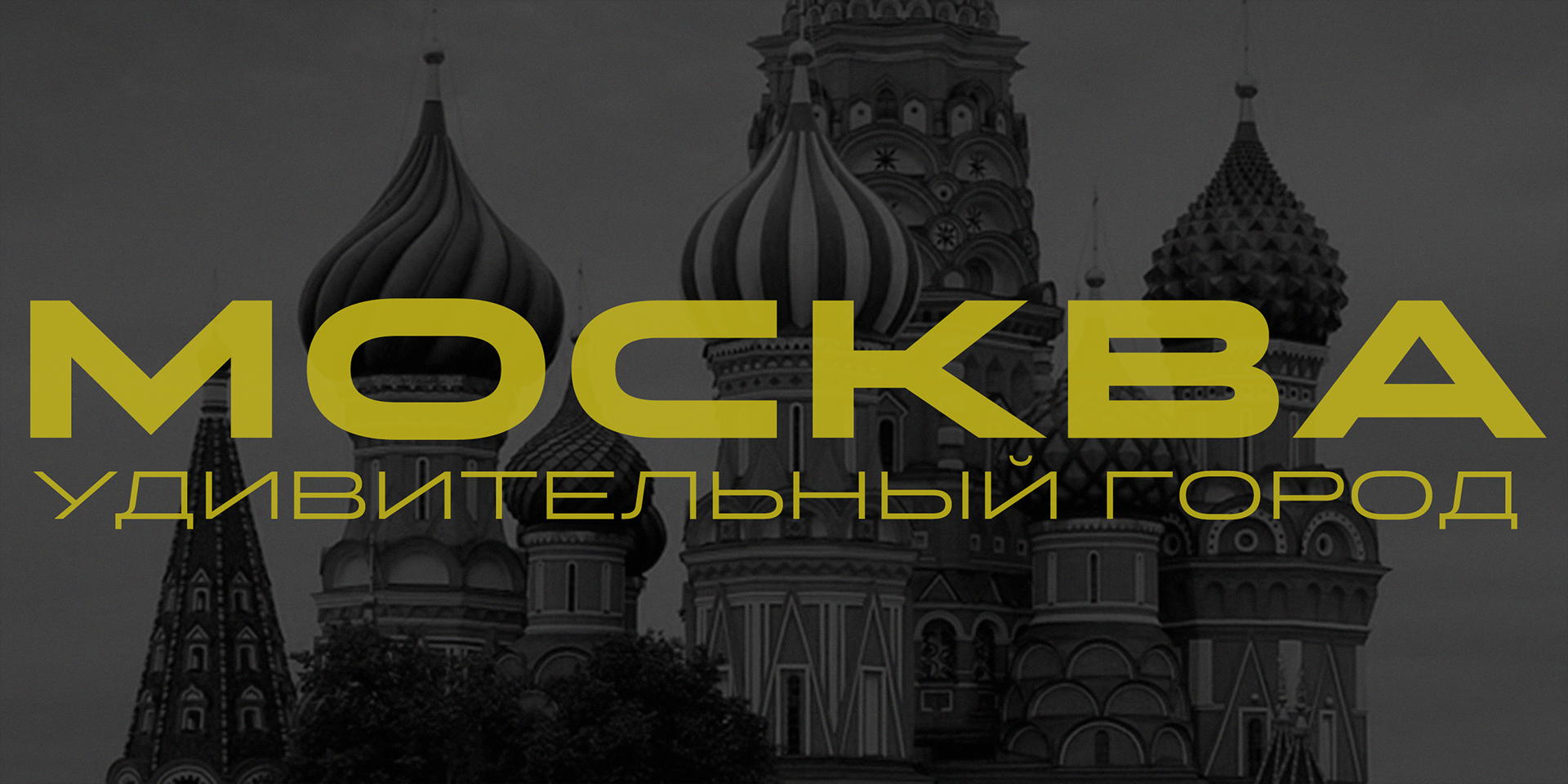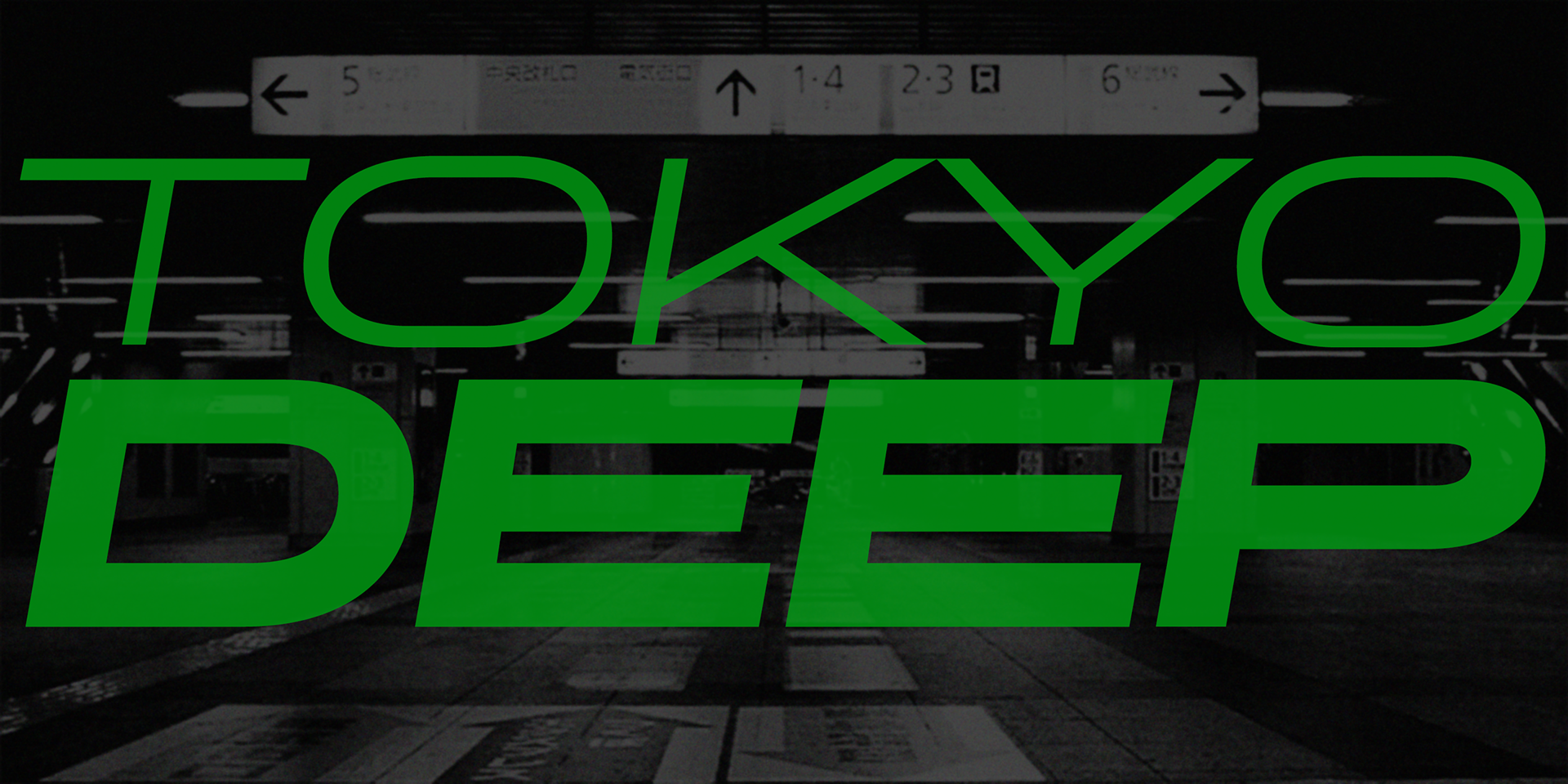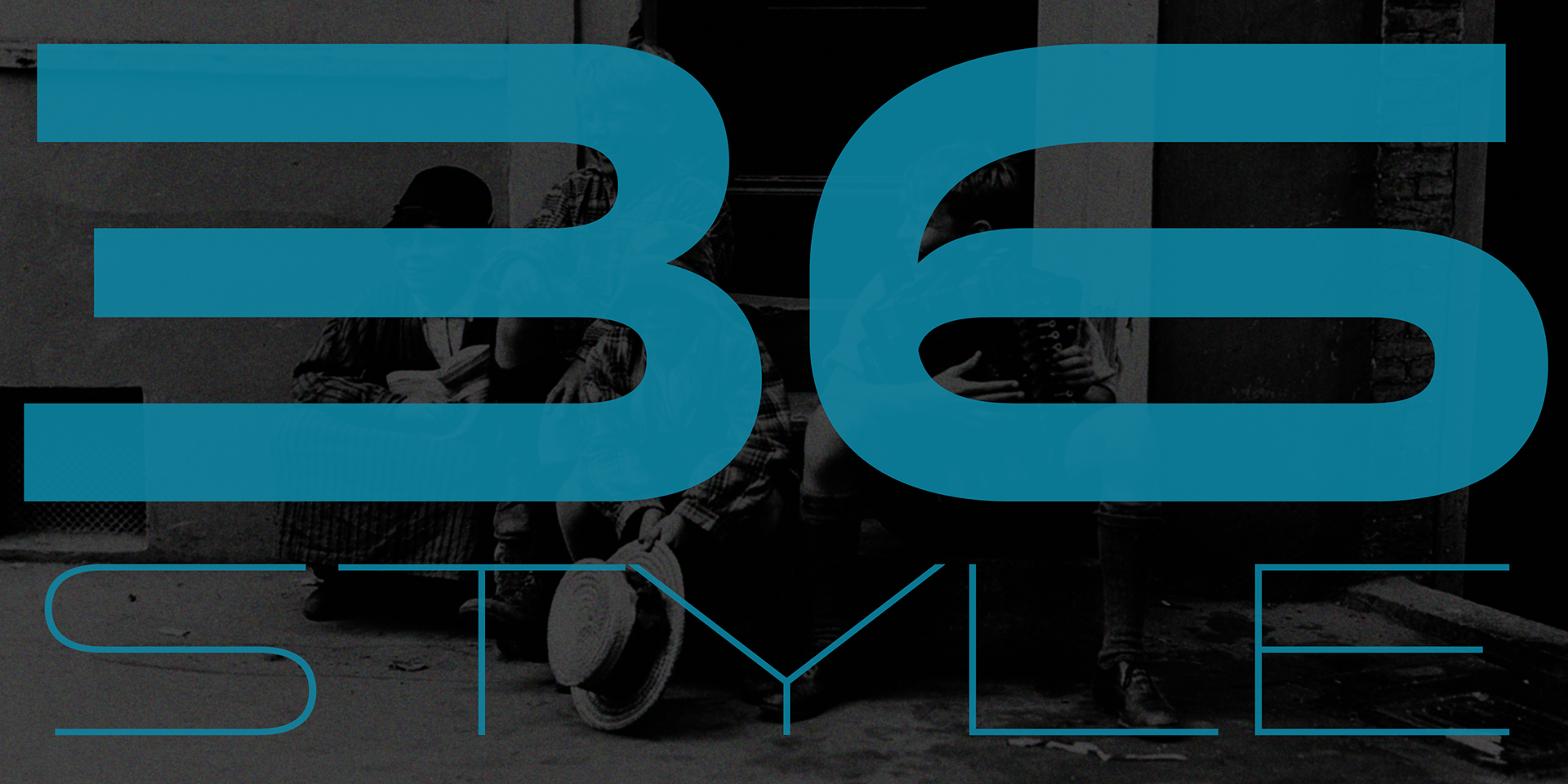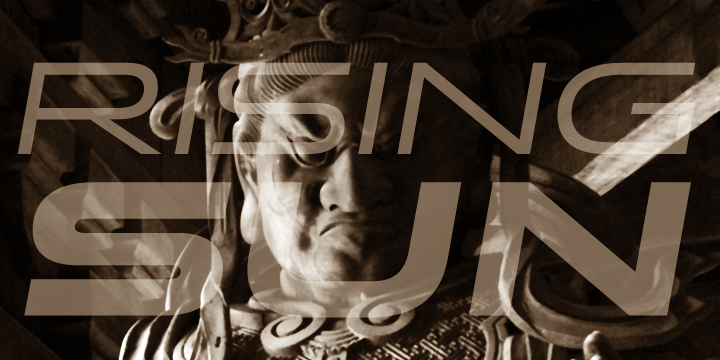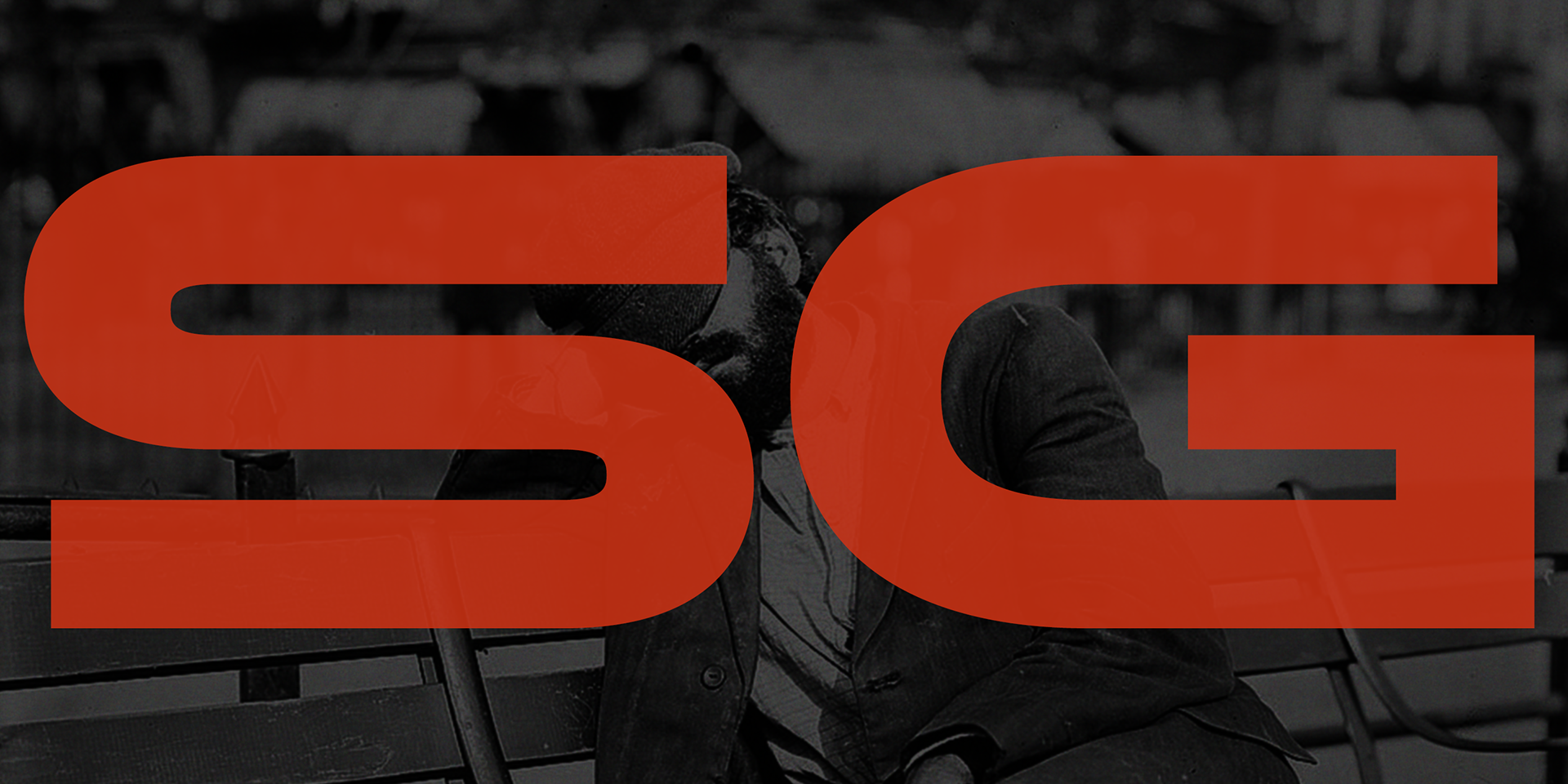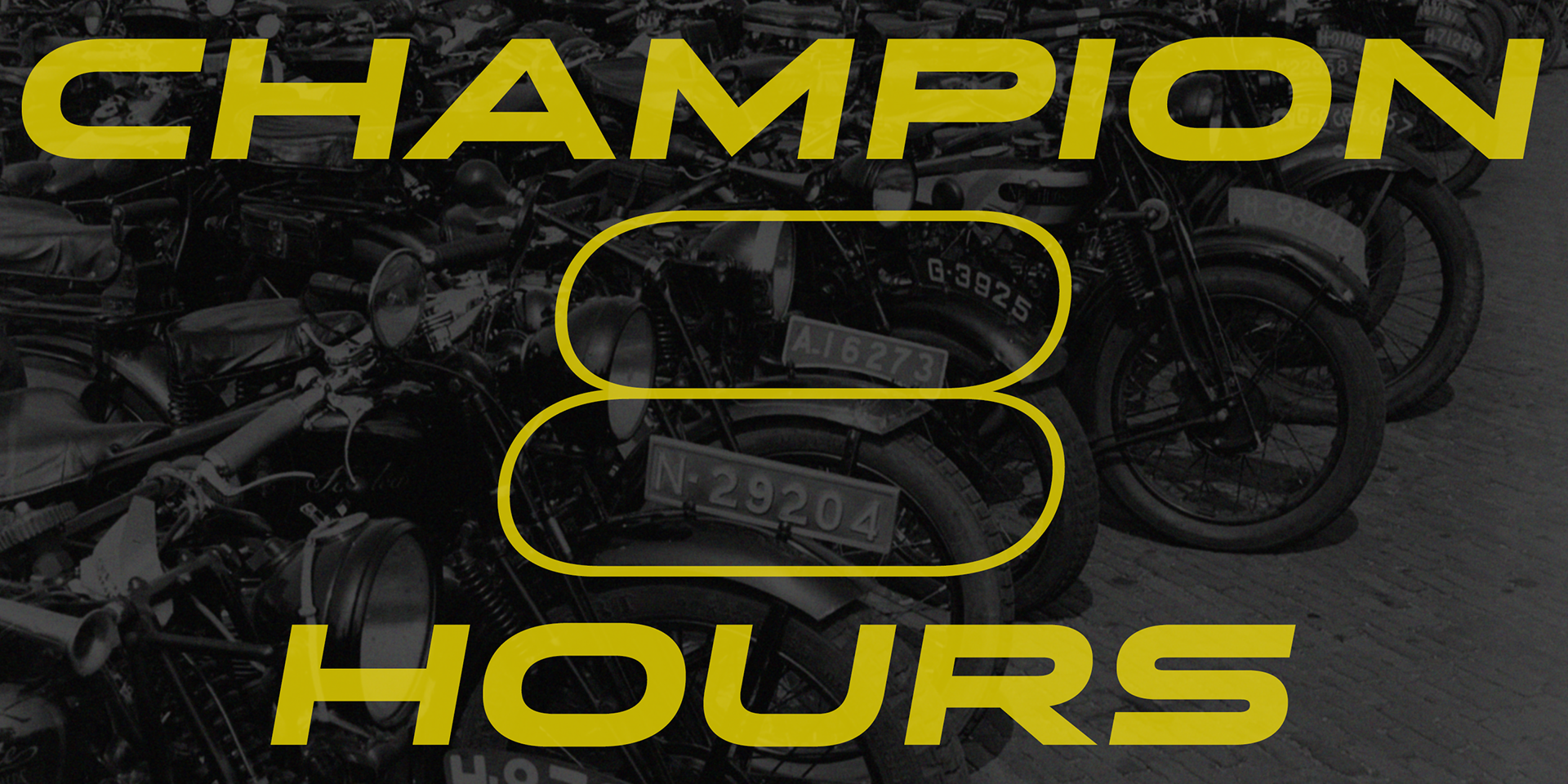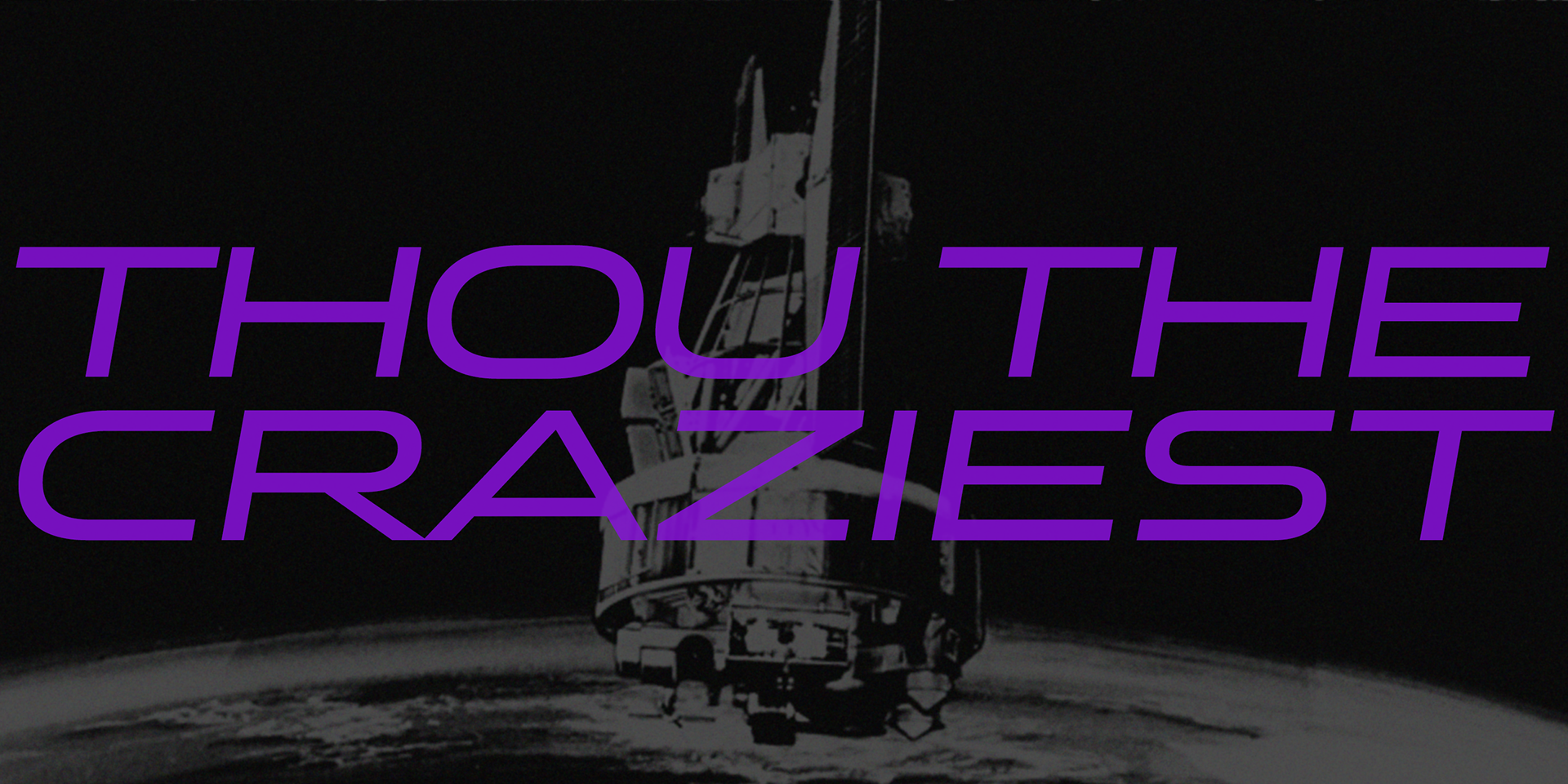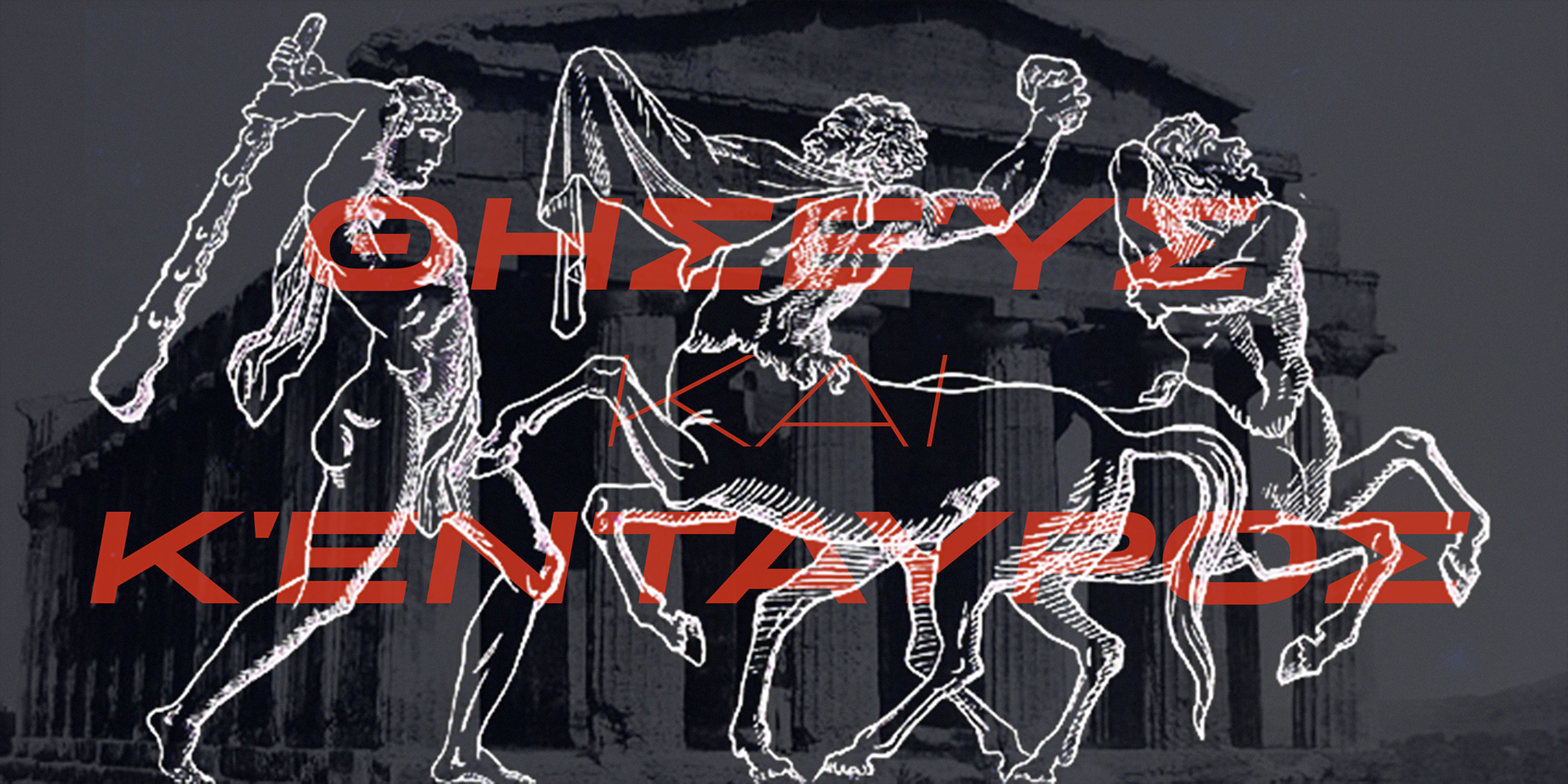
Stereo Gothic
The concept behind this font is simple and straightforward:
Wide, highly legible, and free of decoration—just clean, functional design.
Its range of weights adds flexibility, making it suitable for a variety of design needs.